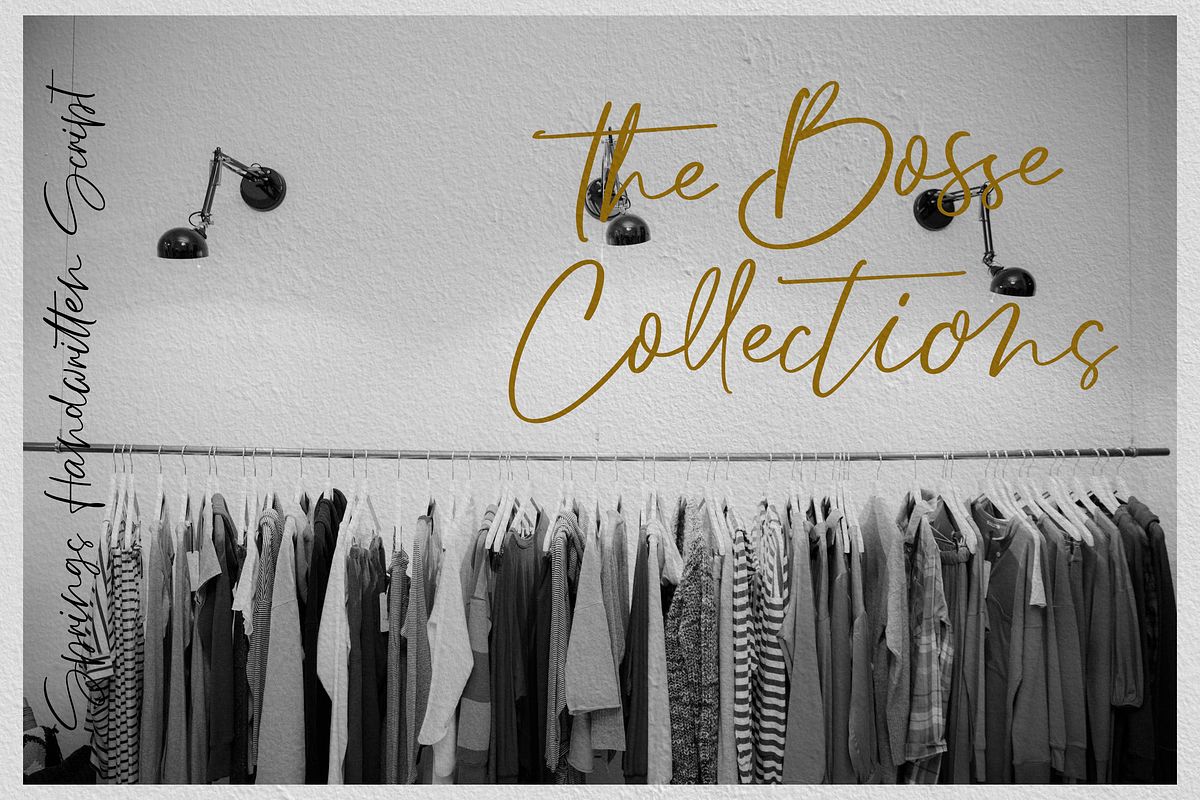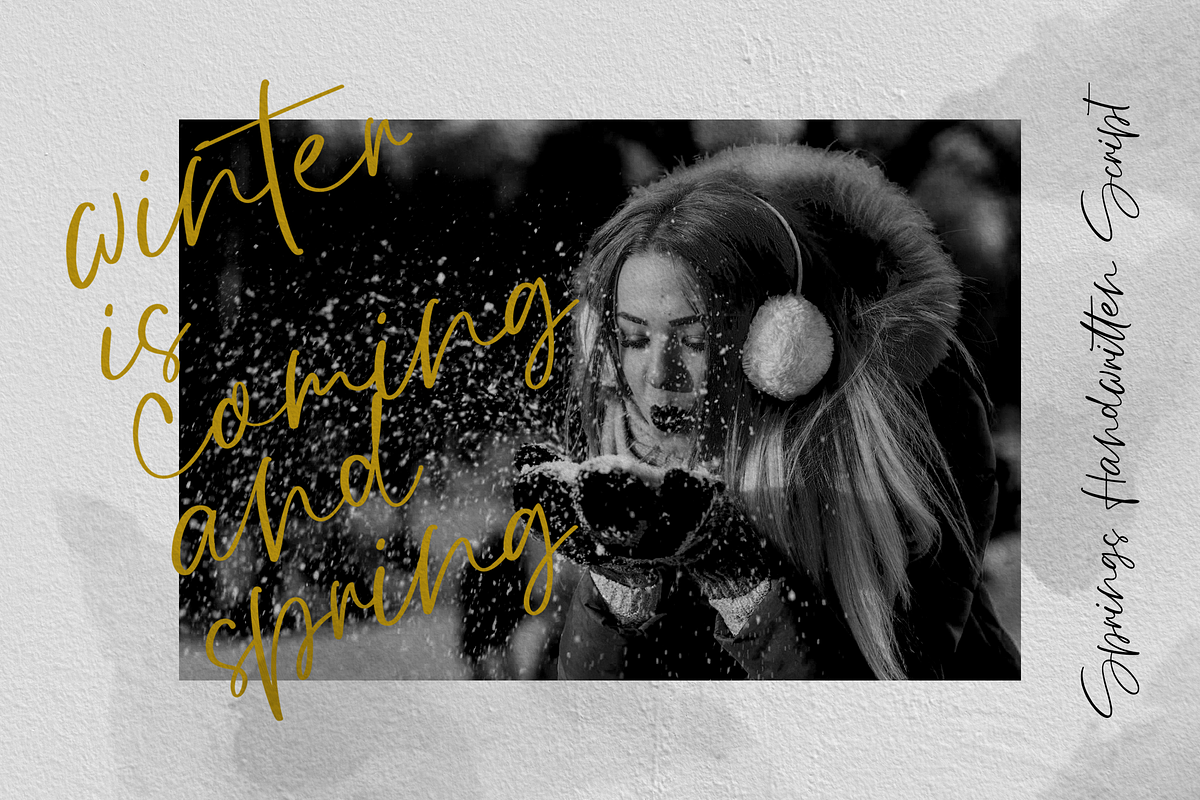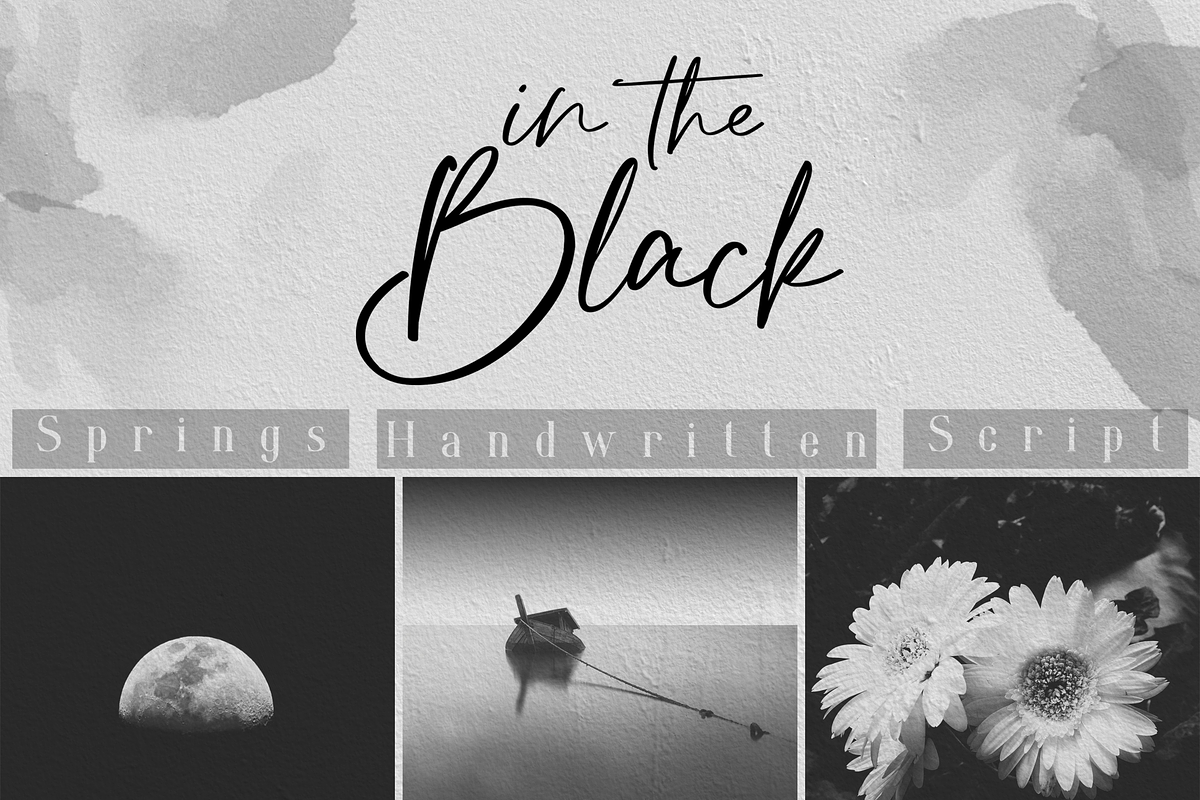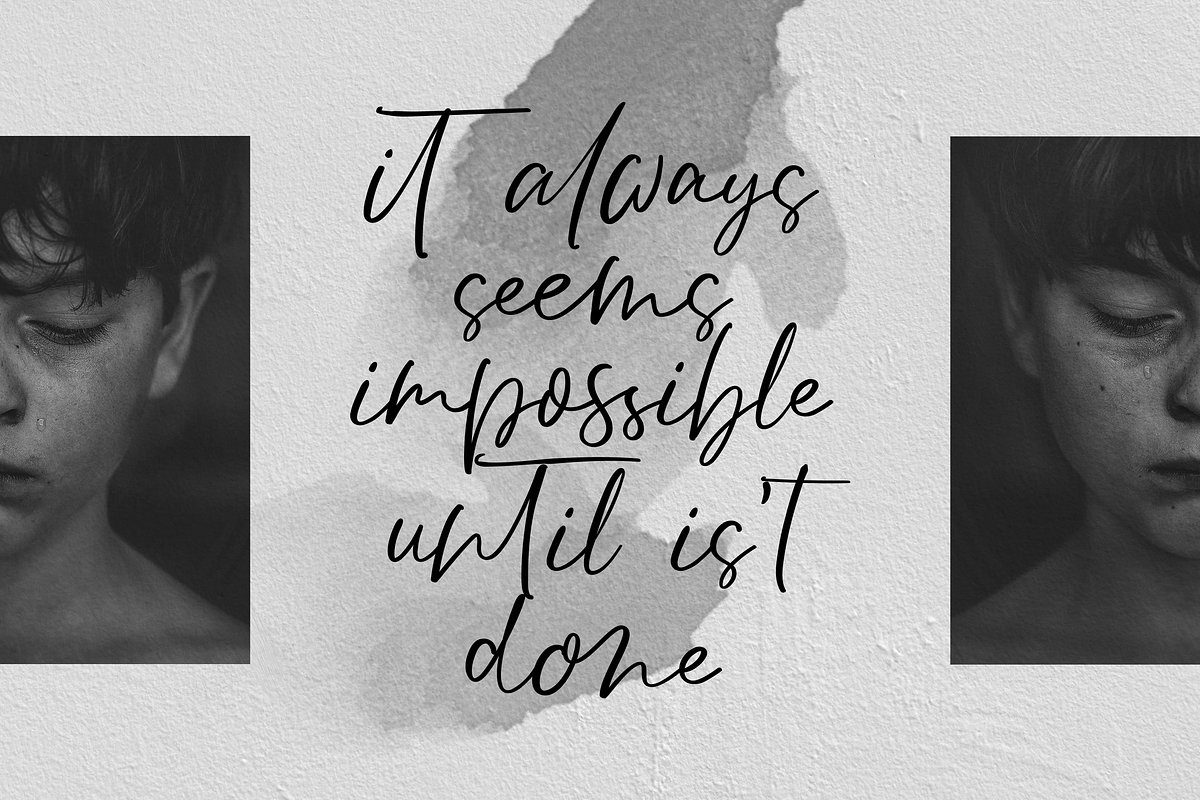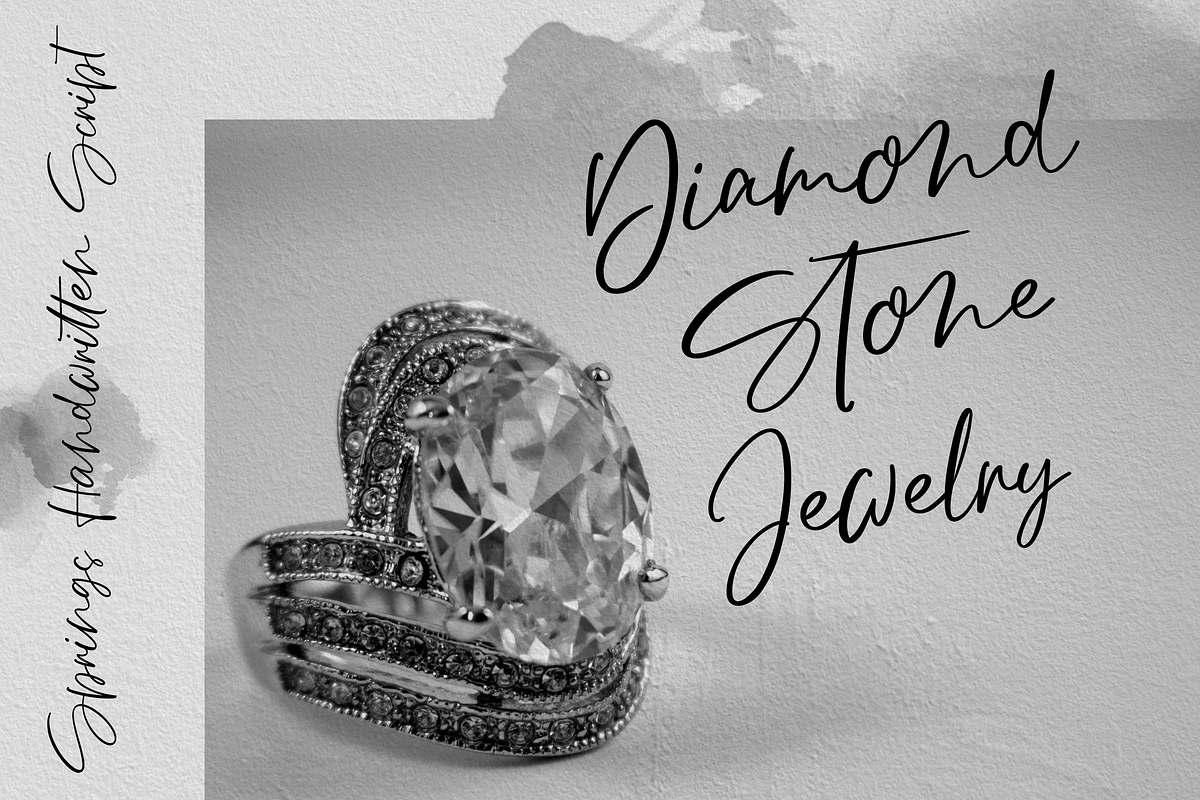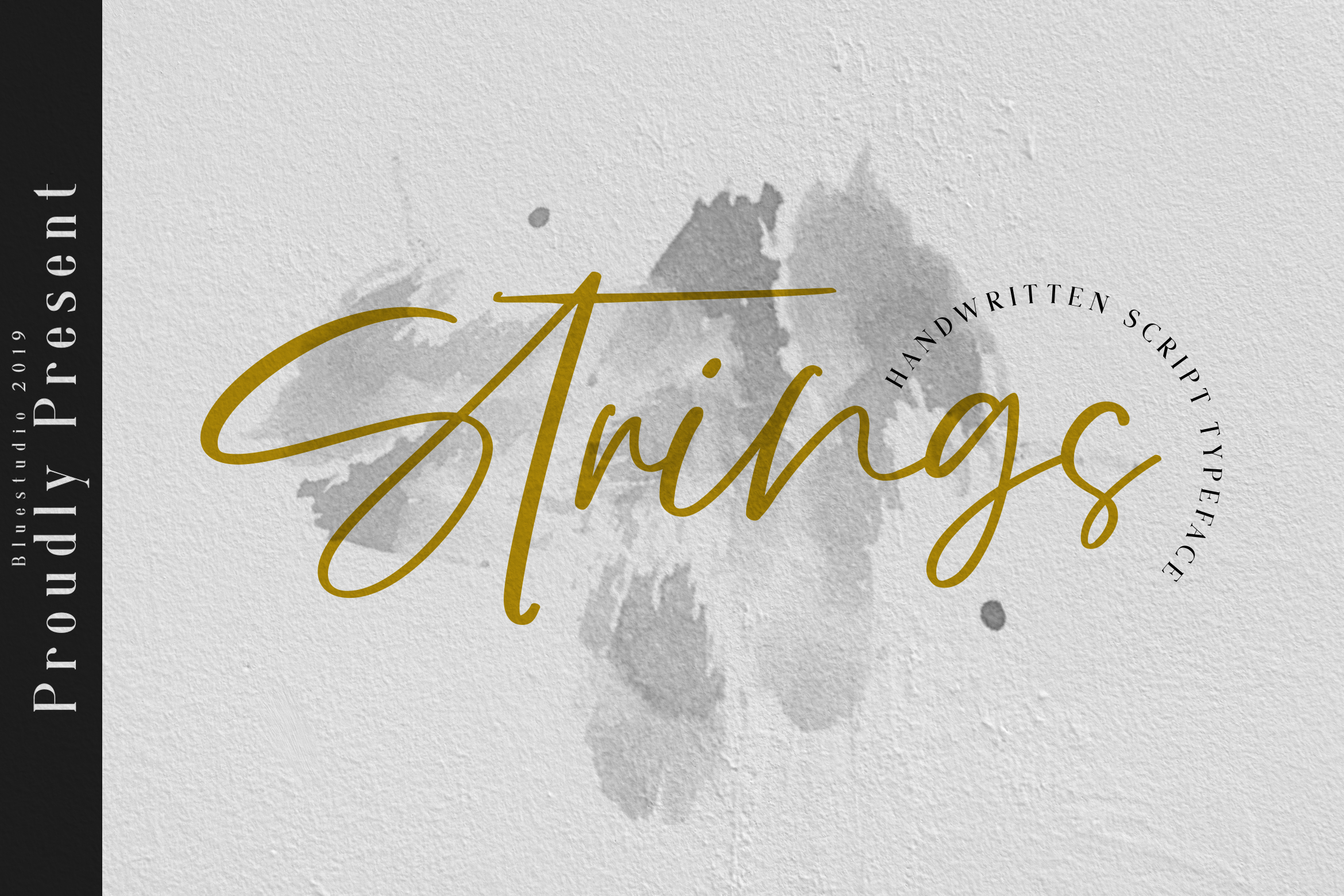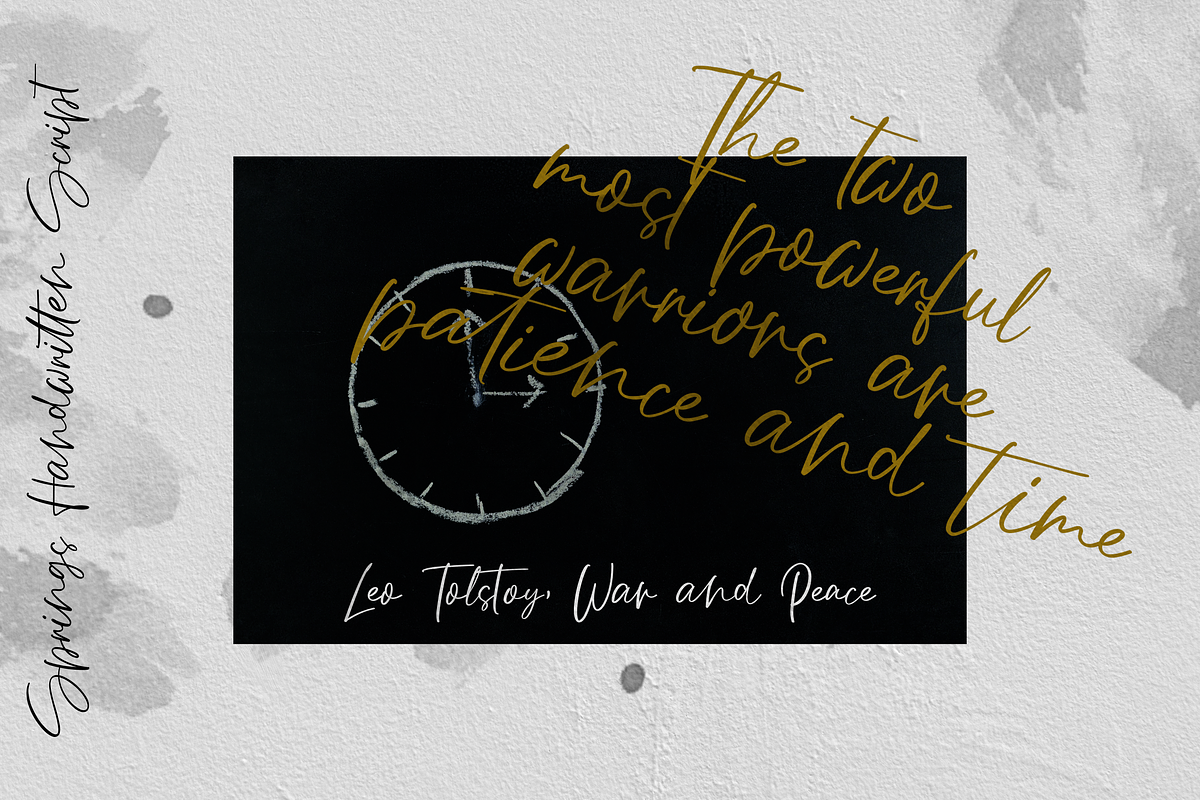
Strings // Handwritten Script Font
Introducing our newest product Strings handwritten script font.
Strings is suitable for all your design project needs such as: logo design, branding, covers, posters, magazines, wedding invitations, greeting cards, quotes and more.
Multilingual support - spread your message globally AÀÁÂÃÄÅCÇDÐEÈÉÌÍÎÏIÌÍÎÏNÑOØÒÓÔÕÖUÙÜÚÛWYÝŸÆßÞþ Encoded PUA Characters